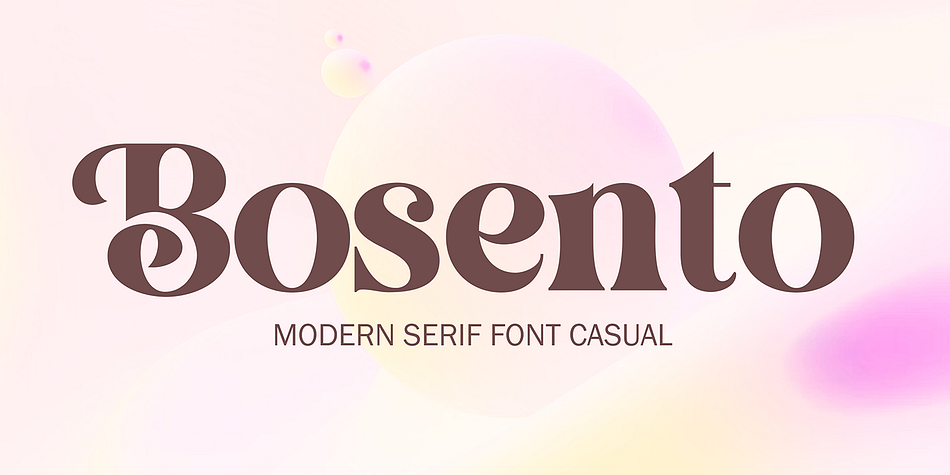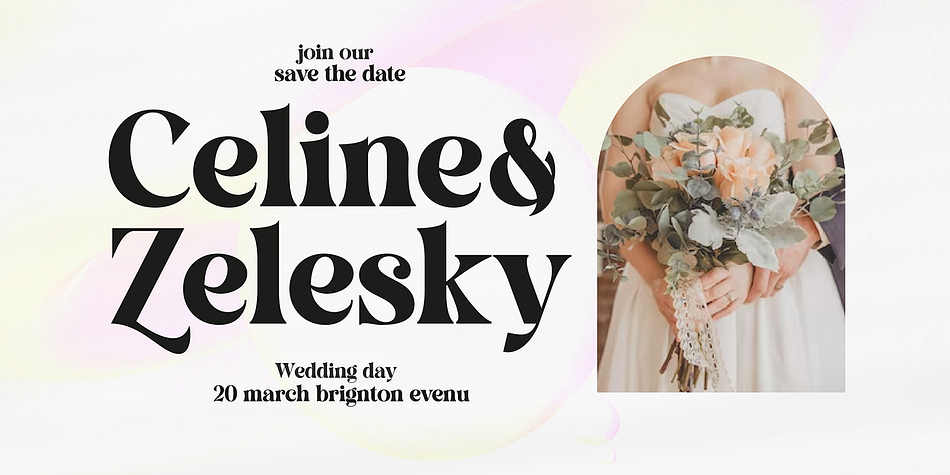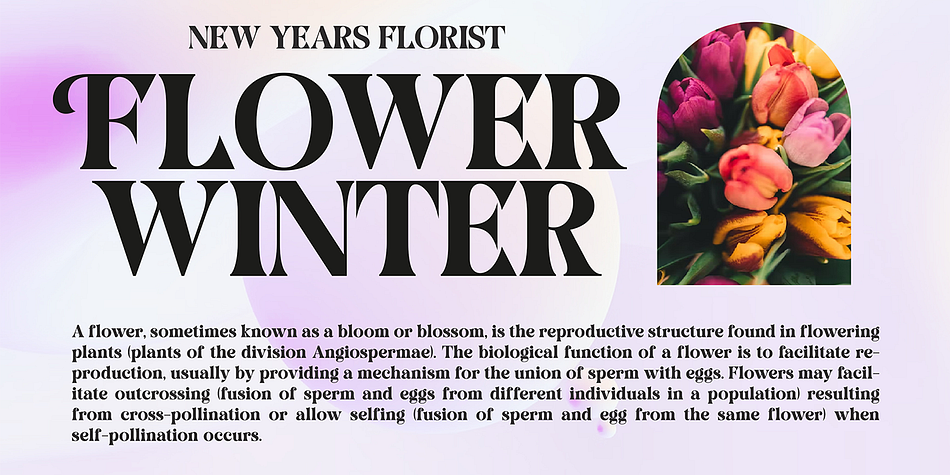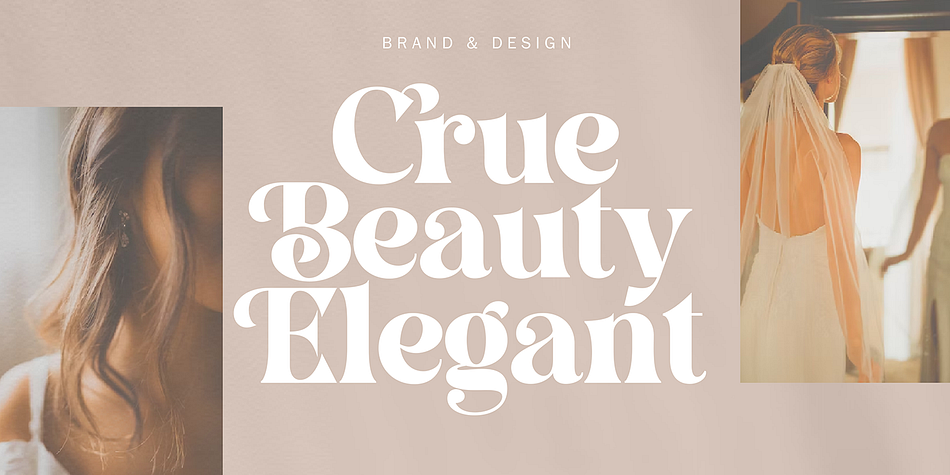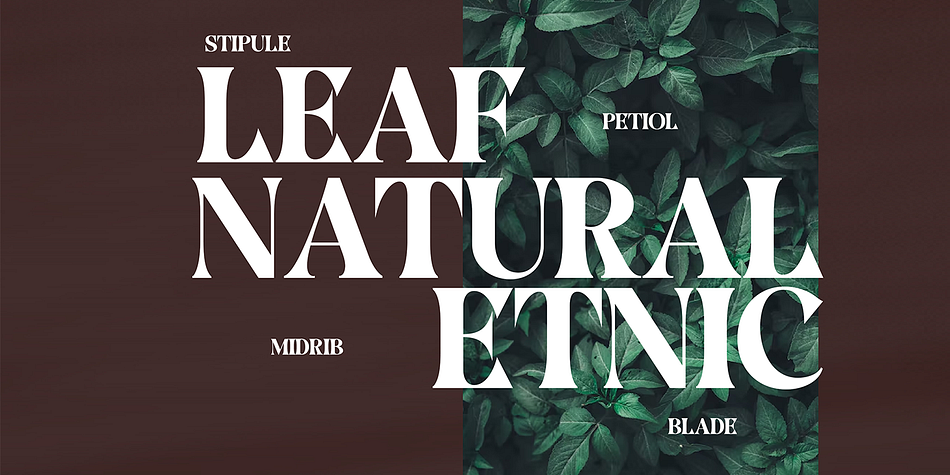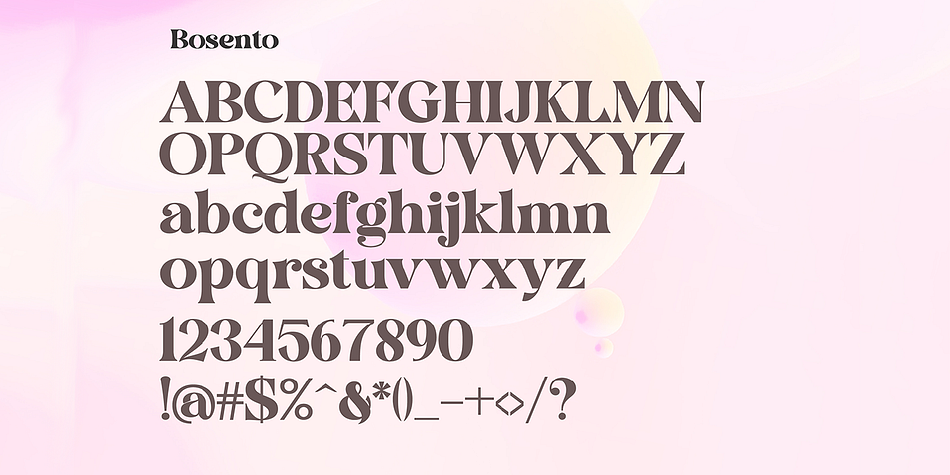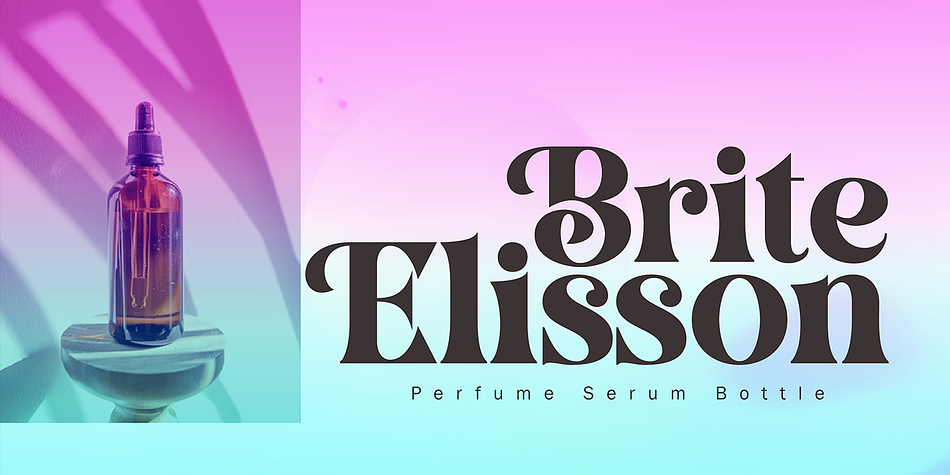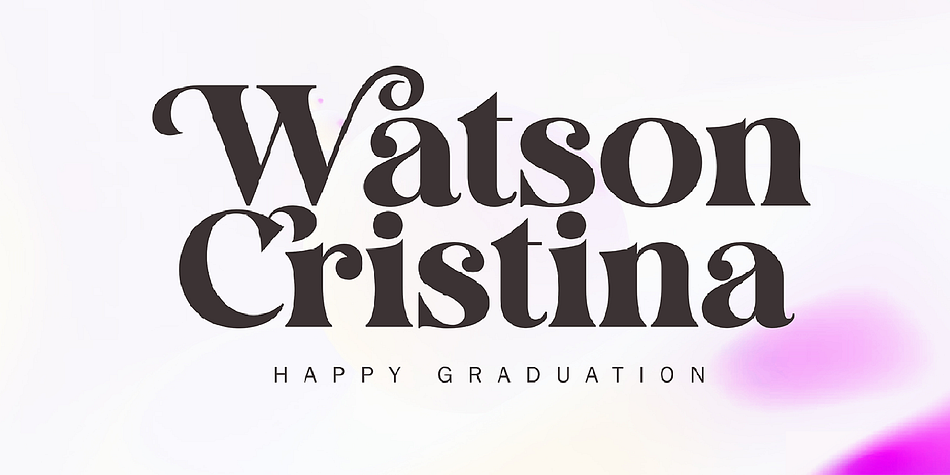
Bosento
Bosento is a display serif and retro font family published by Gatype.
Hi everyone, come back from us The Bosento font is perfect for Your projects today are branding, poster design, t-shirts, invitations, designs for children, and editorial design. You will find a lot of glyphs, including ligatures, to look elegant in this bold serif. OpenType features include style sets, character variants, starting and ending forms, and multilingual support.